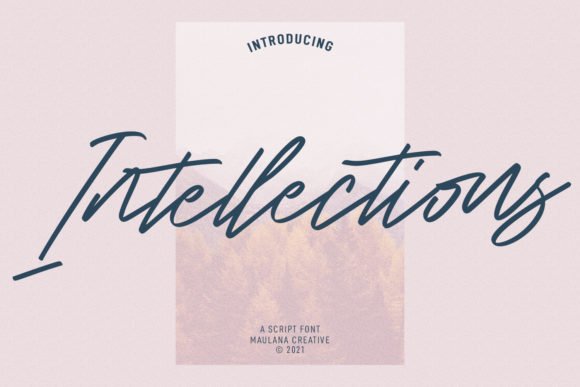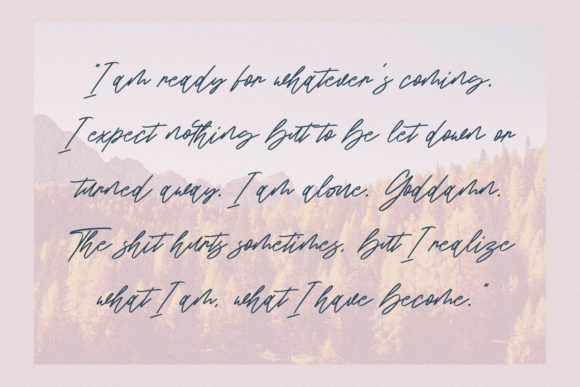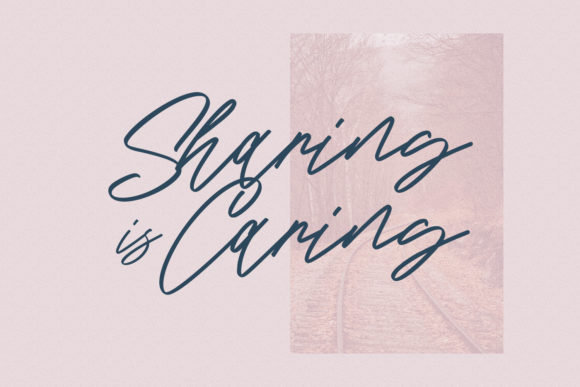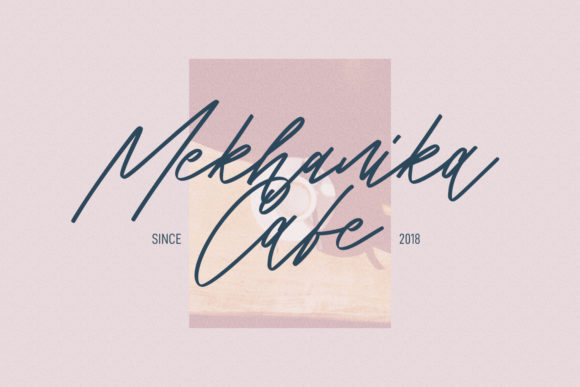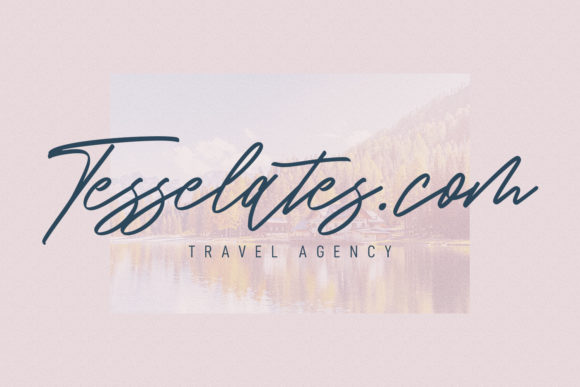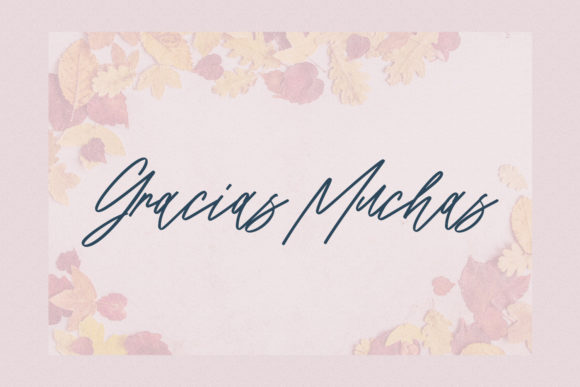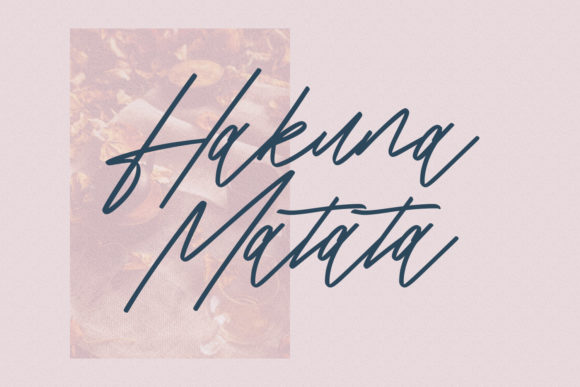
Where Handwritten Meets Elegance: Discovering Intellections Script Font
There’s nothing quite like the feeling of holding a beautifully handwritten note in your hands, the way the ink flows effortlessly across the page, and the love that goes into every stroke. For designers, capturing that same essence on paper is a challenge, but Intellections Script Font makes it a breeze.
This stunning script font is designed to add a touch of elegance to any design, from wedding invitations and thank you cards to quotes, greeting cards, logos, and business cards. With its flowing curves and precise lettering, Intellections Script Font is the perfect solution for designers looking to add a handwritten touch to their work.
Key Features of Intellections Script Font
- Font Style: Script font with elegant, handwritten feel
- Unique Characteristics: Features unique ligatures, swashes, and flourishes that add a touch of personality to any text
Intellections Script Font Review
Overall, I think Intellections Script is a beautiful, elegant font that’s perfect for creative projects, like branding, invitations, and book covers. ✨ The flowing curves and ornate details give it a sophisticated, high-end feel that’s hard to replicate with other fonts. ✨
- Beautifully crafted, intricate details that add to its elegance
- Works well for creative projects that require a touch of sophistication
- Has a wide range of languages supported, making it versatile for global projects
- May be difficult to read at smaller font sizes due to its intricate details
- Not ideal for large blocks of text, as it can be overwhelming
- May require additional styling or formatting to make it work well in certain contexts
Overall, I’d give Intellections Script a solid 4 out of 5 stars. While it has some limitations, its unique beauty and elegance make it a great choice for the right projects. Just be sure to use it thoughtfully and with caution, and you’ll be sure to get the most out of this stunning font. ⚠️
Getting the Most Out of Intellections Script Font
Use Intellections Script Font for titles, headings, and other emphasis in your designs. This font is ideal for creating a unique and elegant look.
Intellections Script Font is perfect for:
Business cards and branding materials
Editorials and magazine covers
Creative Project Ideas using Intellections Script Font
Create a unique and romantic wedding invitation that sets the tone for a magical wedding day.
Use Intellections Script Font for the main title and headings, combining it with elegant floral patterns and soft pastel colors.